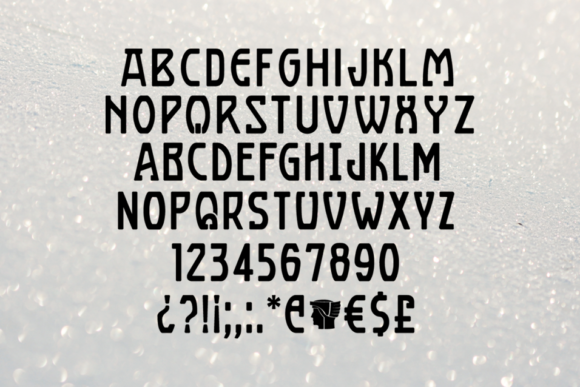
Introducing Boizenburg Font: The Ultimate Retro Display Font for Your Design Needs
Are you looking for a way to add a touch of nostalgia and vintage charm to your designs? Look no further than the Boizenburg font, a retro display font that is sure to elevate your creative projects to the next level. In this article, we’ll take a closer look at the Boizenburg font, its features, and how you can use it to add a special retro touch to any design idea you can think of.
What is Boizenburg Font?
Boizenburg is a carefully crafted retro display font that is inspired by the classic typography of the past. With its bold, chunky letters and distinctive character, this font is perfect for designers and crafters who want to add a touch of vintage flair to their work. Whether you’re creating a logo, poster, or social media graphic, Boizenburg is the perfect choice for anyone looking to make a statement.
Key Features of Boizenburg Font
- Retro-inspired design: Boizenburg font is designed to evoke the classic typography of the past, with bold, chunky letters and a distinctive character.
- High-quality and versatile: This font is perfect for a wide range of design projects, from logos and posters to social media graphics and more.
- Easily readable: Despite its bold and chunky design, Boizenburg font is surprisingly easy to read, making it perfect for headlines, titles, and short paragraphs of text.
How to Use Boizenburg Font in Your Designs
Boizenburg font is incredibly versatile, and can be used in a wide range of design projects. Here are a few ideas to get you started:
- Logos and branding: Use Boizenburg font to create a bold and eye-catching logo that will help your brand stand out.
- Posters and flyers: Add a touch of vintage charm to your posters and flyers with Boizenburg font, perfect for promoting events, products, or services.
- Social media graphics: Use Boizenburg font to create eye-catching social media graphics that will help your posts stand out in crowded feeds.
- Packaging and labels: Add a touch of nostalgia to your packaging and labels with Boizenburg font, perfect for food, beverage, or craft product brands.
Tips for Getting the Most Out of Boizenburg Font
Here are a few tips for getting the most out of Boizenburg font in your designs:
- Experiment with colors: Boizenburg font looks great in a wide range of colors, so don’t be afraid to experiment and find the perfect hue for your design.
- Mix and match with other fonts: Boizenburg font pairs well with a wide range of other fonts, so feel free to get creative and try out different combinations.
- Use it sparingly: While Boizenburg font is bold and eye-catching, it can be overwhelming if used too much. Use it sparingly to add emphasis and create visual interest.
Boizenburg font is a versatile and stylish retro display font that is perfect for designers and crafters who want to add a touch of vintage charm to their work. With its bold, chunky letters and distinctive character, this font is sure to elevate your creative projects to the next level. So why wait? Download Boizenburg font today and start adding a special retro touch to your designs!